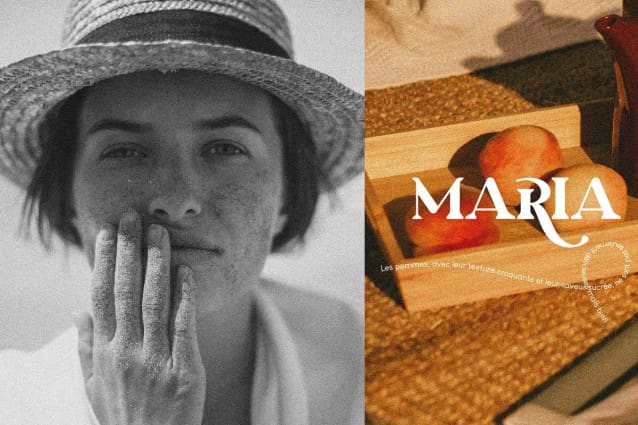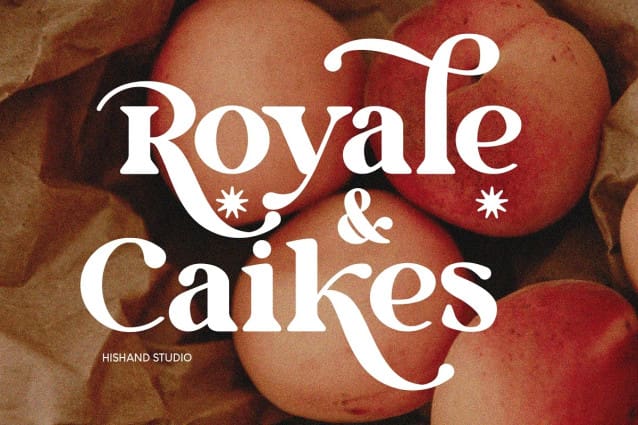
Royale And Caikes Font
Royale And Caikes Font, a captivating new serif font, exudes timeless elegance with its graceful curves and refined serif, making it a sophisticated choice for any design project. Combines classical elements with a modern twist, resulting in a font that is both beautiful and distinctive, perfect for creating a sense of luxury and elegant.